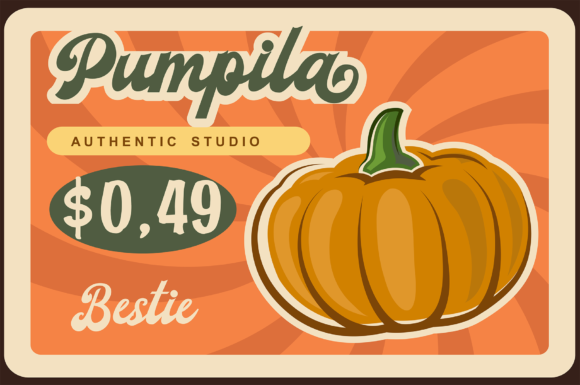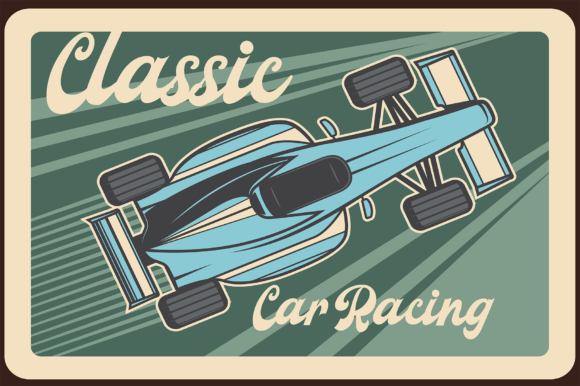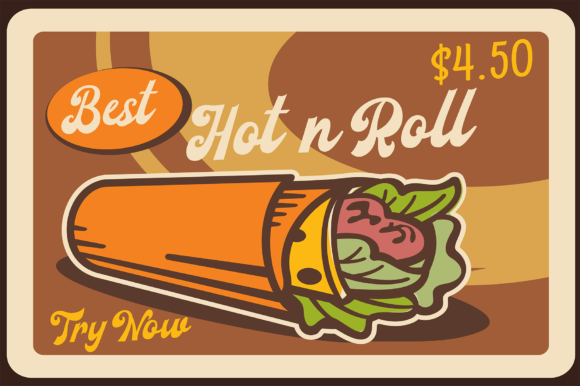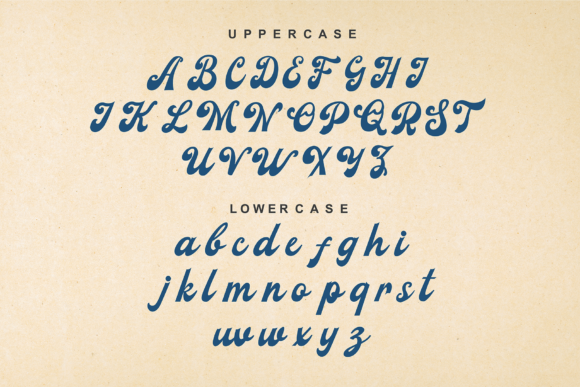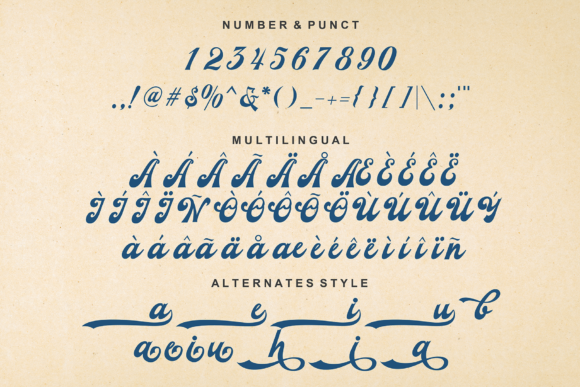
Kaliya Font
About Kaliya Font
Kaliya is a stunning cursive font with a retro style, specifically designed to bring a stylish touch to your headlines and logotype projects. This font exudes strength, confidence, and dynamism, while also infusing your designs with a nostalgic character.
With its gorgeous and flowing letterforms, Kaliya captures attention and adds a unique flair to any text. The cursive nature of the font lends a sense of elegance and sophistication, elevating the overall aesthetic of your design.
Kaliya’s retro-inspired design evokes a sense of nostalgia, giving your projects a vintage charm. It carries a timeless quality that resonates with those seeking a blend of classic and contemporary aesthetics. Whether you’re designing for fashion, branding, or any other creative endeavor, Kaliya adds a touch of retro allure.
This font is particularly well-suited for headlines and logotypes, where it shines in creating strong visual impact. Its distinctive and confident style grabs attention and leaves a lasting impression on your audience.
In summary, Kaliya is a gorgeous cursive font with a retro touch that adds a stylish and nostalgic character to your headlines and logotype projects. Its strong, confident, and dynamic appearance makes it a perfect choice for those seeking a blend of vintage and contemporary aesthetics. Embrace the beauty of Kaliya and let it bring a touch of retro charm to your designs.